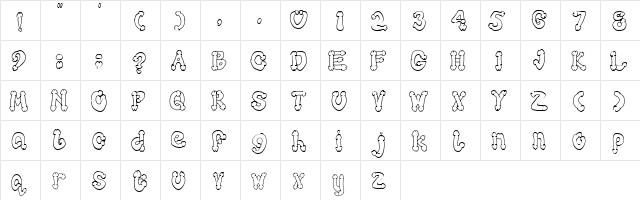
Koksure Regular
Design Context for Koksure Typeface
Koksure is a composed and adaptable typeface that performs quietly and consistently across a wide range of design contexts.